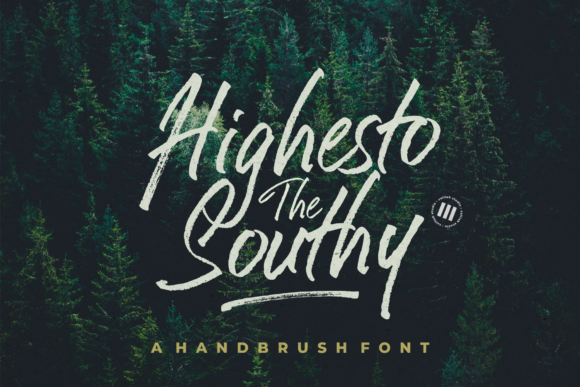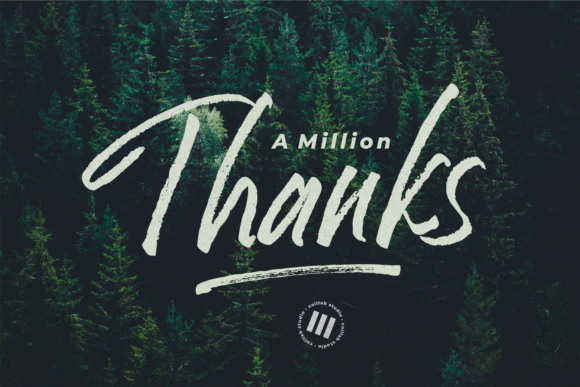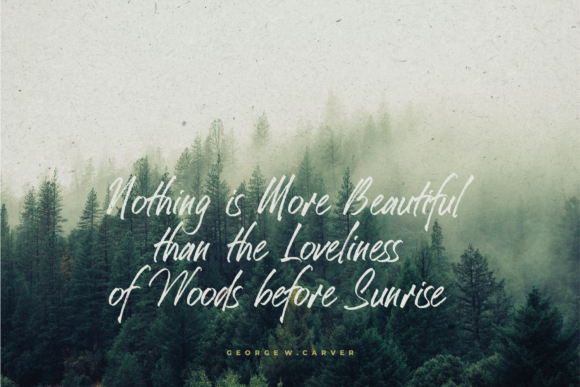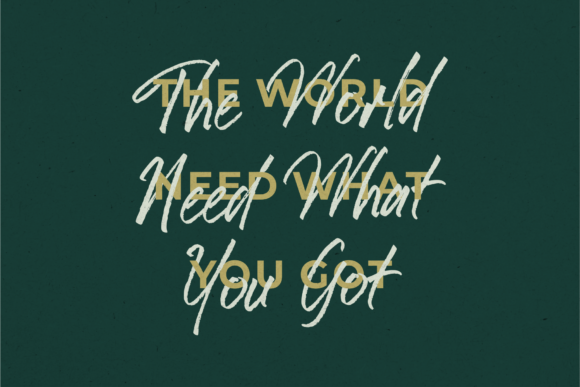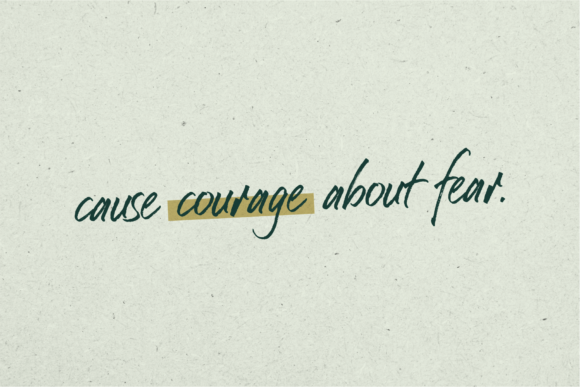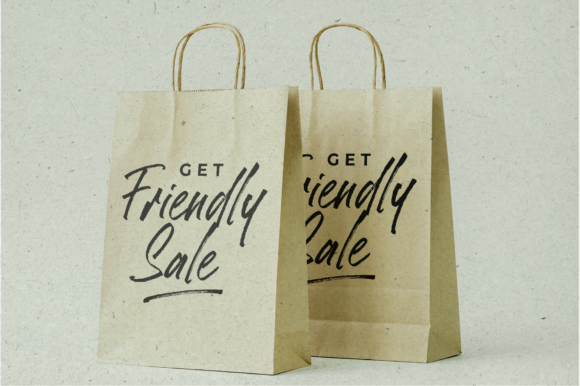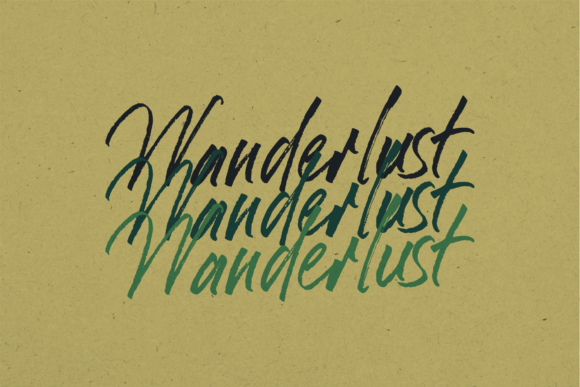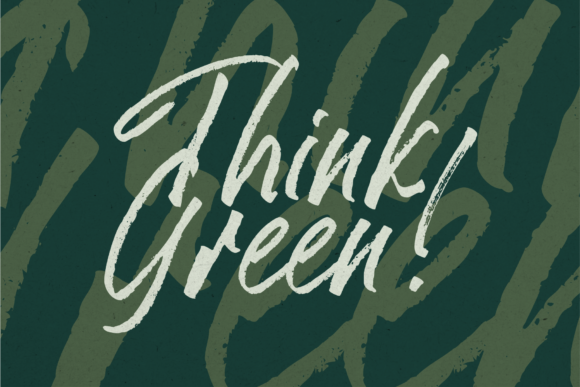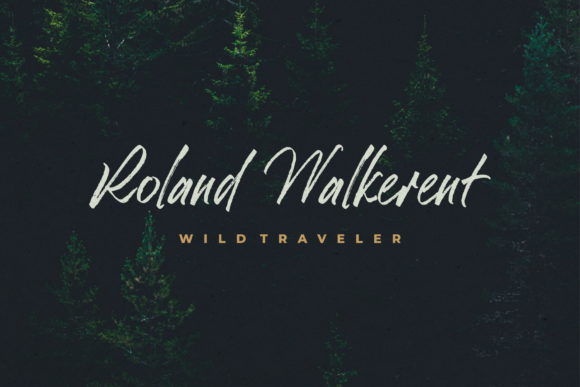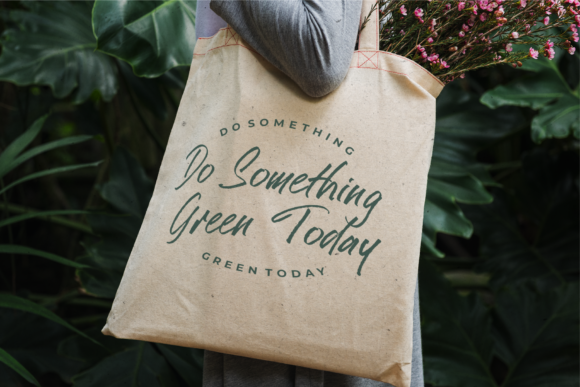
Highest the Southy Font
Introducing “Highest The Southy,” a graceful and flowing handwritten font that exudes elegance and charm. With its delicate touch and timeless style, “Highest The Southy” is the perfect choice for a wide range of projects, allowing you to bring your creative ideas to life in a spectacular way. Here are some key features that make “Highest The Southy” stand out:
Elegant and Flowing: The smooth and graceful strokes of “Highest The Southy” give your text a sophisticated and refined appearance. Its flowing design adds a touch of gracefulness to your projects, making it ideal for wedding invitations, quotes, and other upscale designs.
Distinct and Timeless: “Highest The Southy” possesses a distinct character that sets it apart from ordinary fonts. Its uniqueness gives your designs a touch of exclusivity, while its timeless appeal ensures that your creations remain relevant and captivating for years to come.
Versatile Applications: Whether you’re working on wedding invitations, thank you cards, logos, or any other design that requires a handwritten touch, “Highest The Southy” will elevate your projects to new heights of elegance and sophistication.
Spectacular Creativity: Fall in love with “Highest The Southy” as it becomes a muse for your favorite projects. Its incredible versatility allows you to experiment with various design concepts, knowing that each one will be enriched by the font’s exquisite style.
With “Highest The Southy” as your go-to font, you have a powerful tool at your disposal to create stunning and memorable designs. Its elegant touch and timeless allure make it a font that will captivate hearts and leave a lasting impression on your audience. Embrace the distinctive charm of “Highest The Southy” and let it infuse your projects with beauty and sophistication.